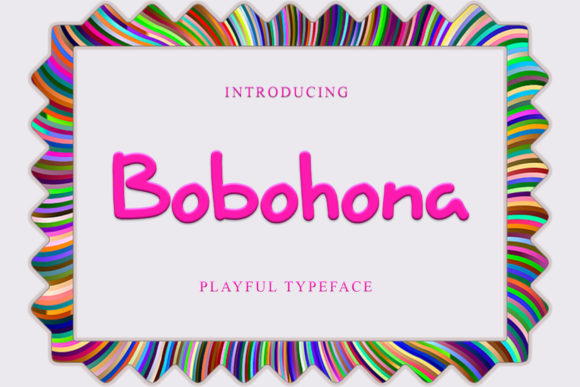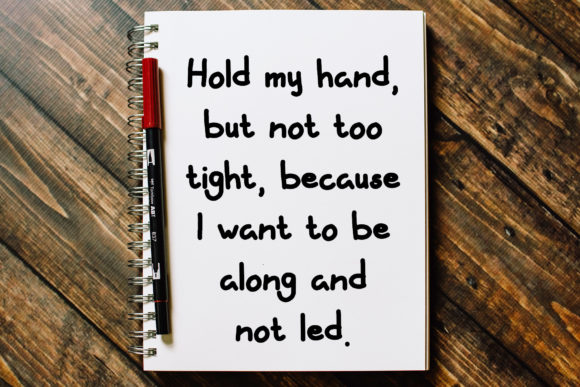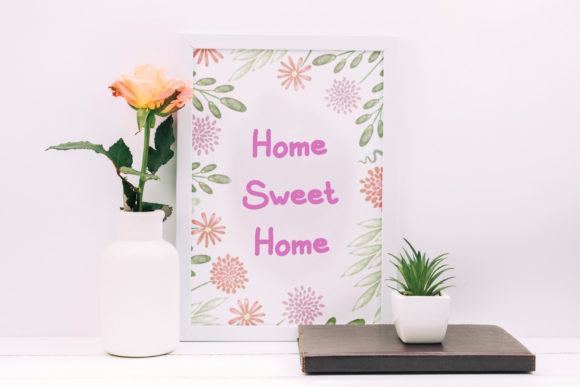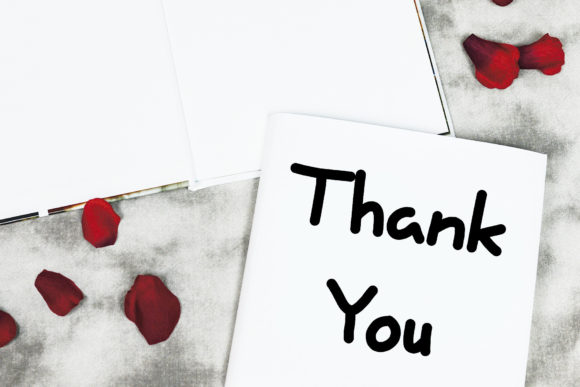
About Bobohona Font
Bobohona is indeed a cute and dainty script font that exudes sophistication and elegance. Its charming and delicate style makes it a perfect choice for various design projects.
The stylish alternates and ligatures of Bobohona further enhance its versatility and allow you to create unique and eye-catching compositions. By utilizing these special characters, you can add flourishes, swashes, and decorative elements to your text, giving it a personalized and refined touch.
Whether you’re working on logos, branding materials, invitations, stationery, or social media posts, Bobohona can elevate your designs and make them stand out. Its combination of cuteness and elegance adds a touch of playfulness and grace to any project, making it suitable for a wide range of applications.
With its carefully crafted letterforms and attention to detail, Bobohona ensures a balanced and visually appealing composition. Its dainty strokes and flowing lines create a sense of grace and sophistication, making it an excellent choice for projects that require an elegant and refined aesthetic.
In summary, Bobohona is a cute and dainty script font that exudes sophistication and elegance. Its stylish alternates and ligatures offer creative possibilities and allow for unique and personalized designs. Whether you’re creating logos, invitations, or any other project, Bobohona is a versatile font that will enhance the overall aesthetic and add a touch of charm to your typography.